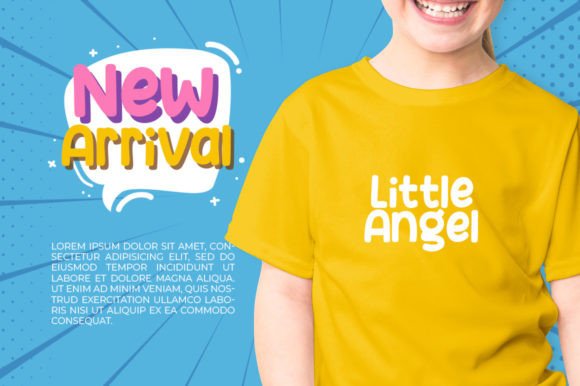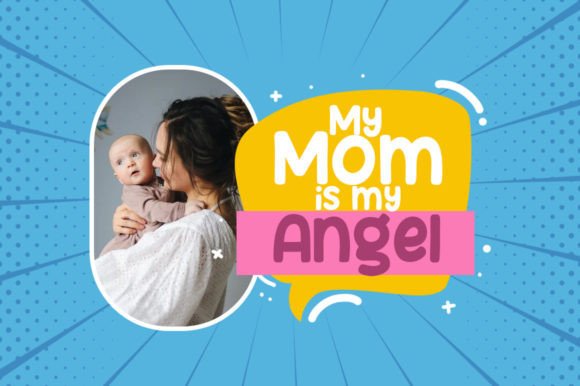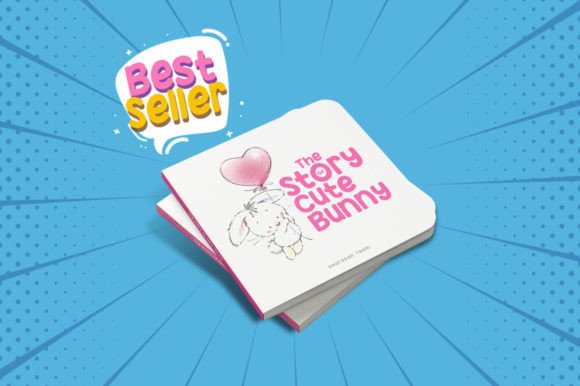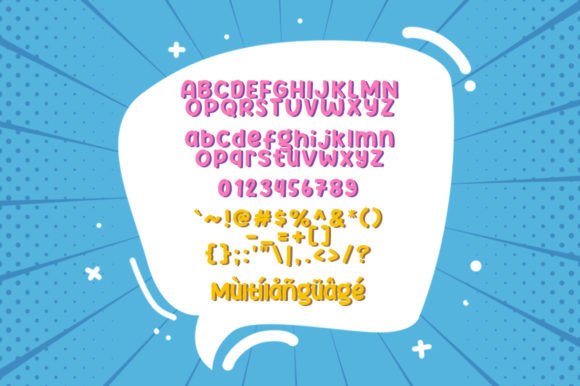
Introducing Comic Story Font: The Ultimate Display Font for Creative Designs
Are you a designer or crafter looking for a font that can add a touch of playfulness and style to your graphic design projects? Look no further than Comic Story Font, a modern, clean, and stylish display font that’s perfect for creating beautiful and extraordinary designs. In this article, we’ll explore the features and benefits of Comic Story Font, and show you how to use it to take your designs to the next level.
What is Comic Story Font?
Comic Story Font is a display font designed to make a statement. Its modern, clean, and stylish design makes it perfect for a wide range of graphic design projects, from posters and logos to magazines, book covers, and banners. This font is all about having fun and being creative, making it an ideal choice for designers and crafters who want to add a touch of whimsy to their designs.
Key Features of Comic Story Font
- Modern and Clean Design: Comic Story Font features a sleek and modern design that’s perfect for creating contemporary and stylish designs.
- Playful and Fun: This font has a playful and fun vibe that’s perfect for designs that require a touch of whimsy and personality.
- Highly Versatile: Comic Story Font can be used for a wide range of design projects, from posters and logos to magazines, book covers, and banners.
- Easily Customizable: This font is highly customizable, making it easy to adjust and modify to suit your design needs.
Benefits of Using Comic Story Font
So why choose Comic Story Font for your design projects? Here are just a few benefits of using this amazing display font:
- Adds a Touch of Personality: Comic Story Font adds a touch of personality and whimsy to your designs, making them stand out from the crowd.
- Perfect for Branding: This font is perfect for creating memorable and eye-catching brand logos and marketing materials.
- Increases Engagement: The playful and fun design of Comic Story Font can help increase engagement and interaction with your designs.
How to Use Comic Story Font
Using Comic Story Font is easy! Here are a few tips and ideas to get you started:
- Pair it with Other Fonts: Comic Story Font pairs well with other fonts, so don’t be afraid to experiment and find the perfect combination for your design.
- Use it for Headlines: This font is perfect for headlines and titles, where its bold and playful design can really make an impact.
- Add some Texture: Adding texture and patterns to your design can help take it to the next level and add some extra visual interest.
- Experiment with Colors: Comic Story Font looks great in a wide range of colors, so don’t be afraid to experiment and find the perfect hue for your design.
Who is Comic Story Font for?
Comic Story Font is perfect for a wide range of designers and crafters, including:
- Graphic Designers: This font is perfect for graphic designers who want to add a touch of personality and whimsy to their designs.
- Crafters: Crafters who want to create unique and eye-catching designs will love Comic Story Font.
- Small Business Owners: Small business owners who want to create memorable and effective branding will love this font.
In conclusion, Comic Story Font is a modern, clean, stylish, and playful display font that’s perfect for all your graphic design projects. With its highly versatile design, easily customizable features, and wide range of uses, this font is a must-have for designers and crafters who want to add a touch of personality and whimsy to their designs. So why wait? Get Comic Story Font today and start creating beautiful and extraordinary designs!